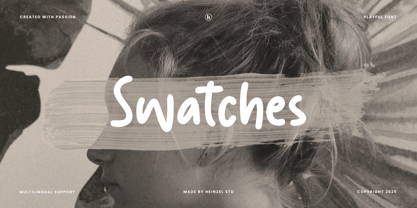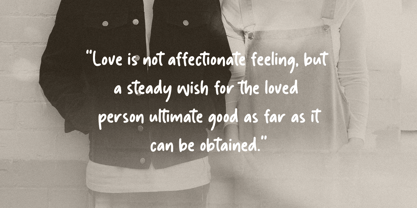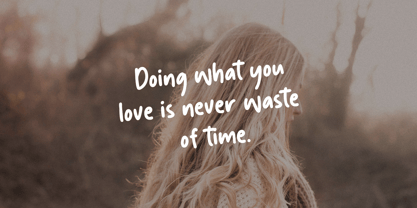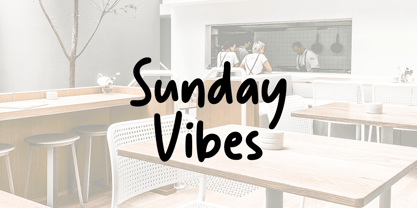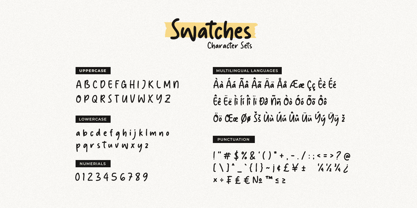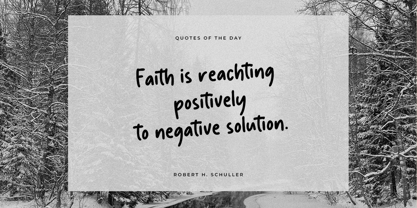
Swatches
by Heinzel Std
The Swatches Font Family was designed by Nofi Sofyan Hadi and published by Heinzel Std. Swatches contains 1 styles. More about this family
Swatches is a simple handwritten font that exudes adorable charm and is filled with delightful design elements. It possesses a vibrant and irresistibly cute atmosphere, characterized by its simplicity and cuteness that is hard to resist. This font is soft, gentle, and evokes feelings of warmth and love. The Cute Style Font adds a touch of sweetness and playfulness to any project. This font is perfect for goodnotes, school project, teachers, stickers, home decoration, quotes, headings, blogs, logos, invitations and more!
Designers: Nofi Sofyan Hadi
Foundry: Heinzel Std